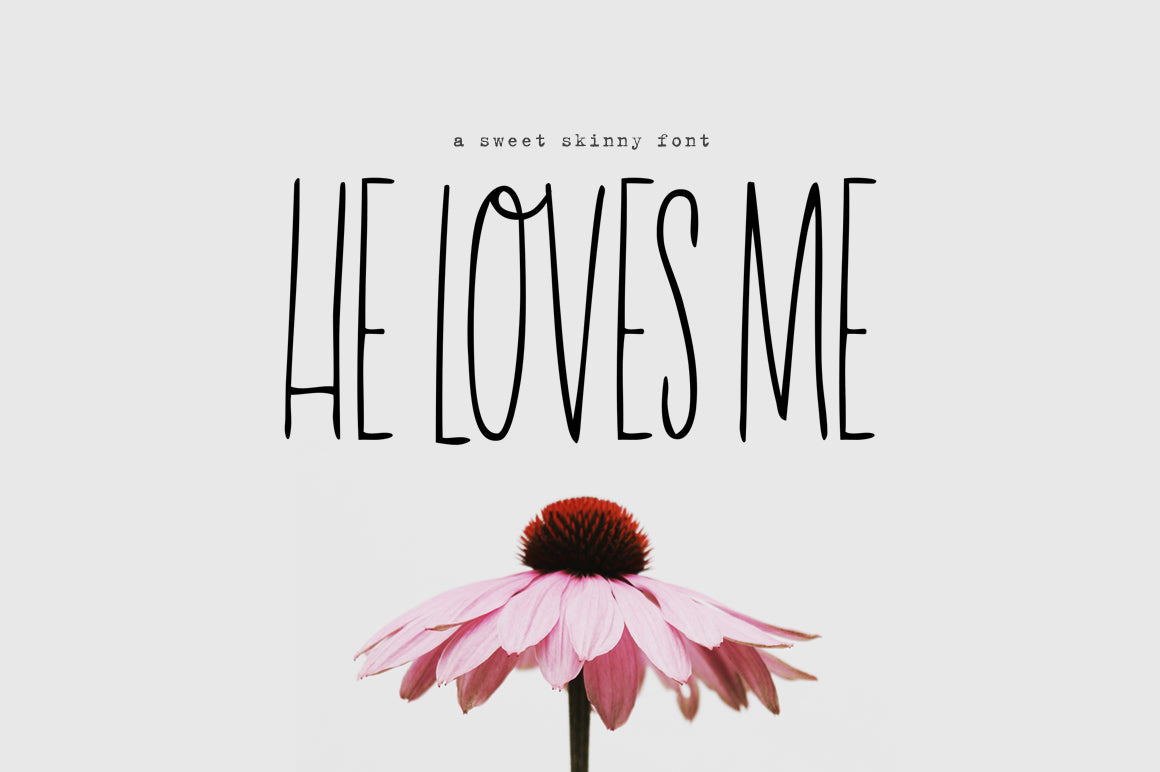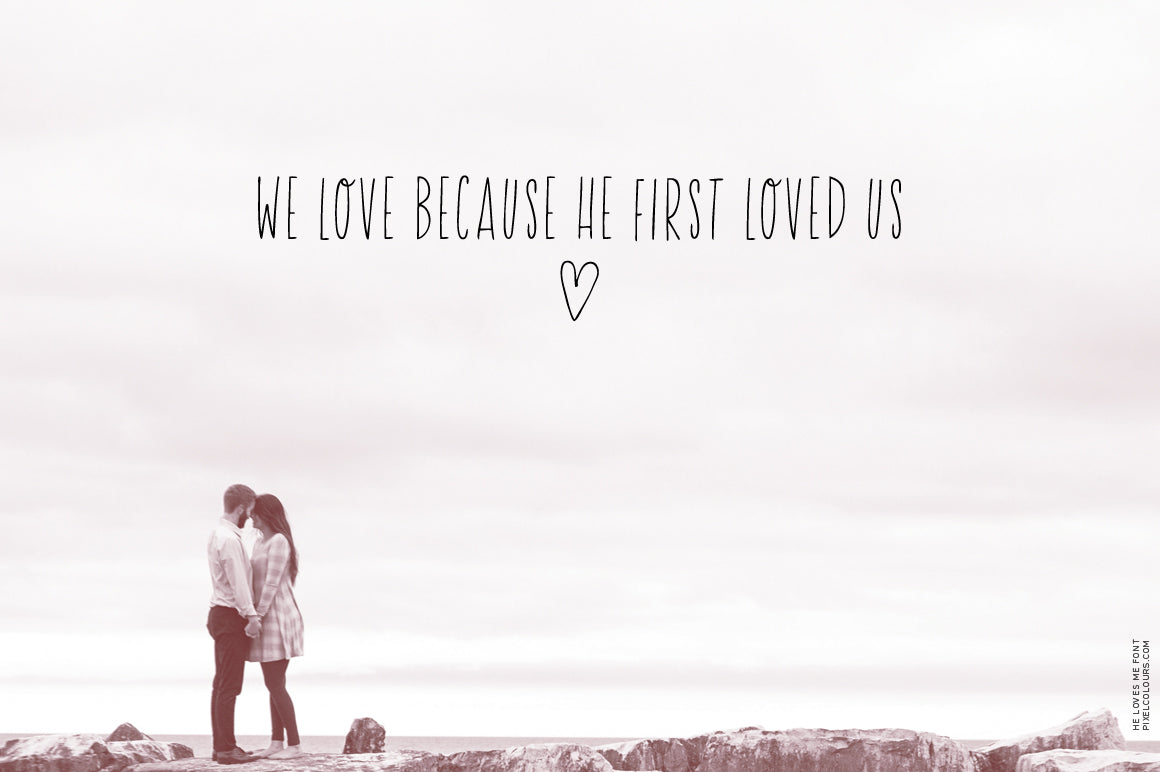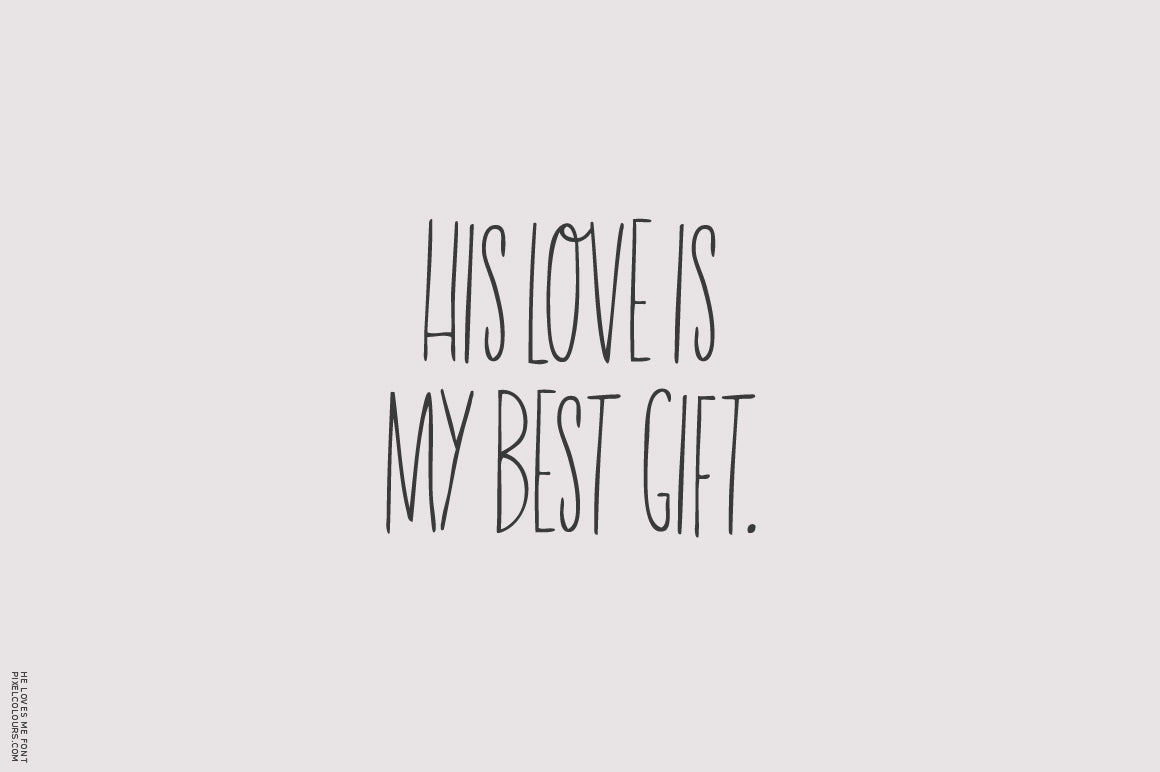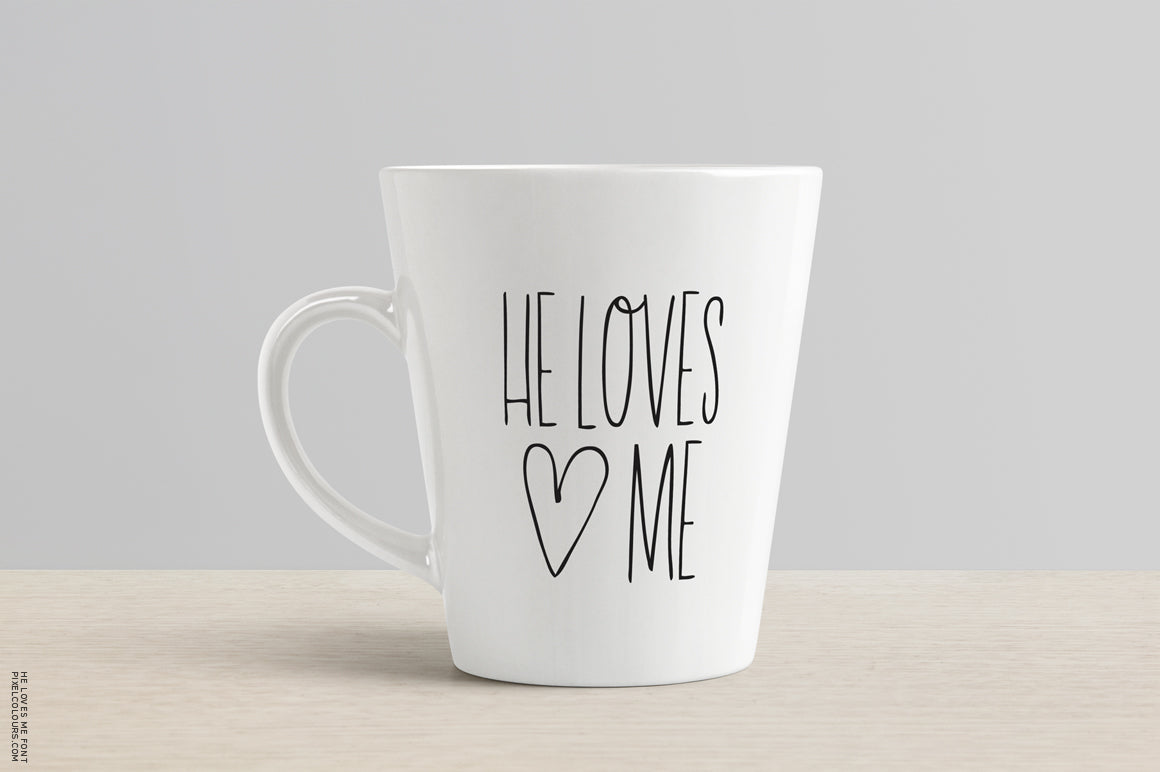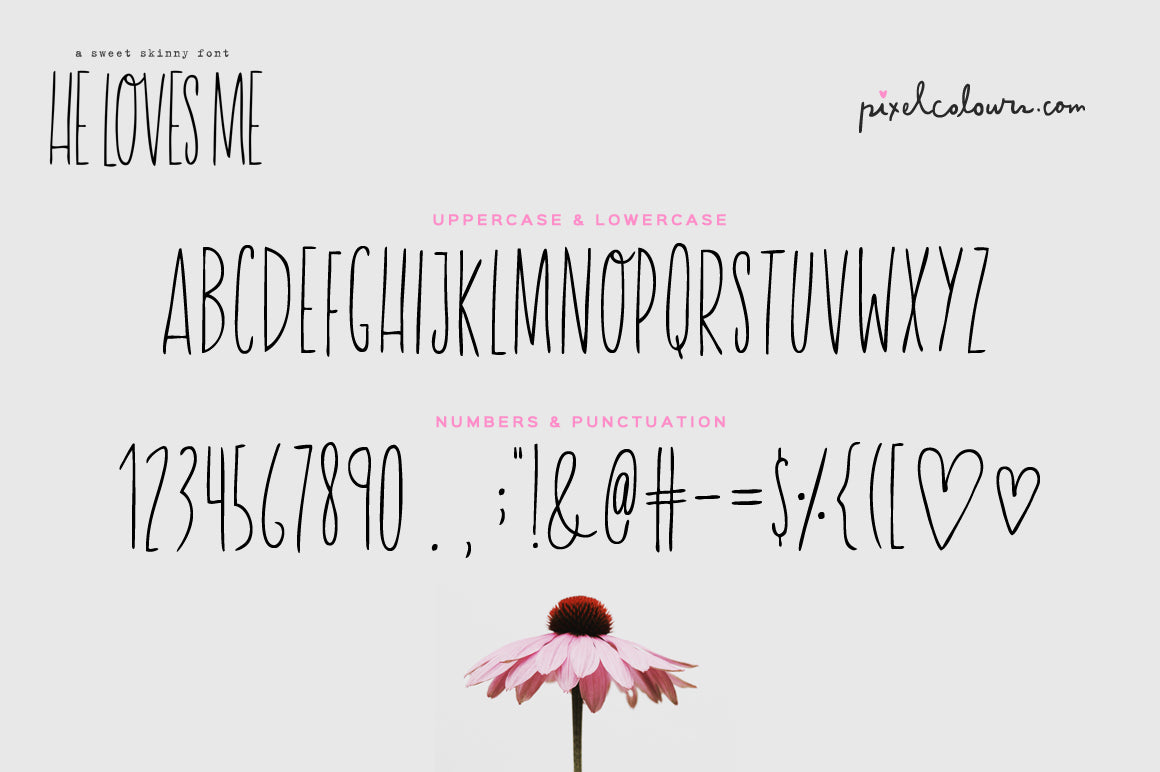
He Loves Me Skinny Font
A classic but original, imperfect skinny font with lots of sweetness! This handwritten font looks super beautiful in titles, recipes, social media posts, quotes, etc.